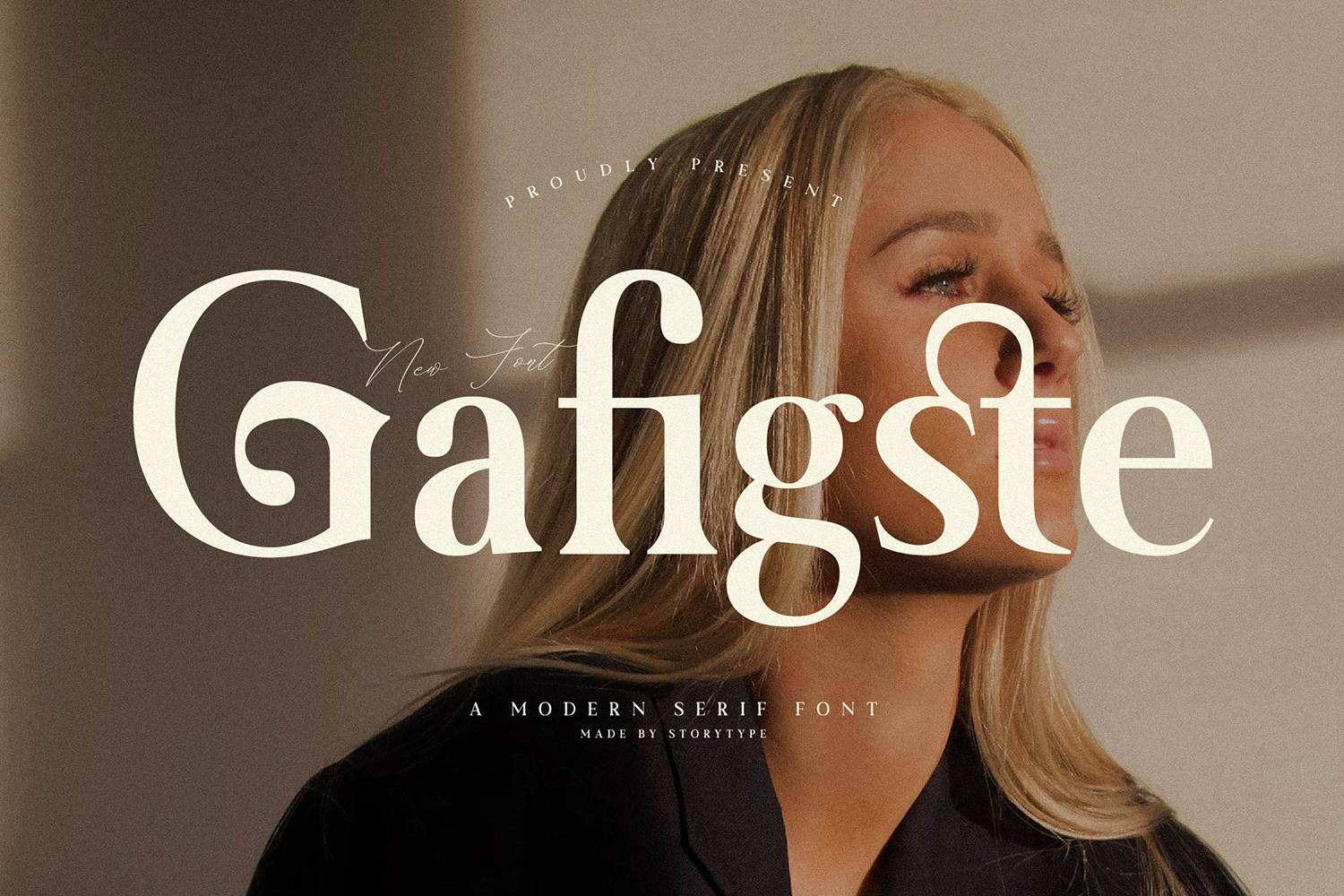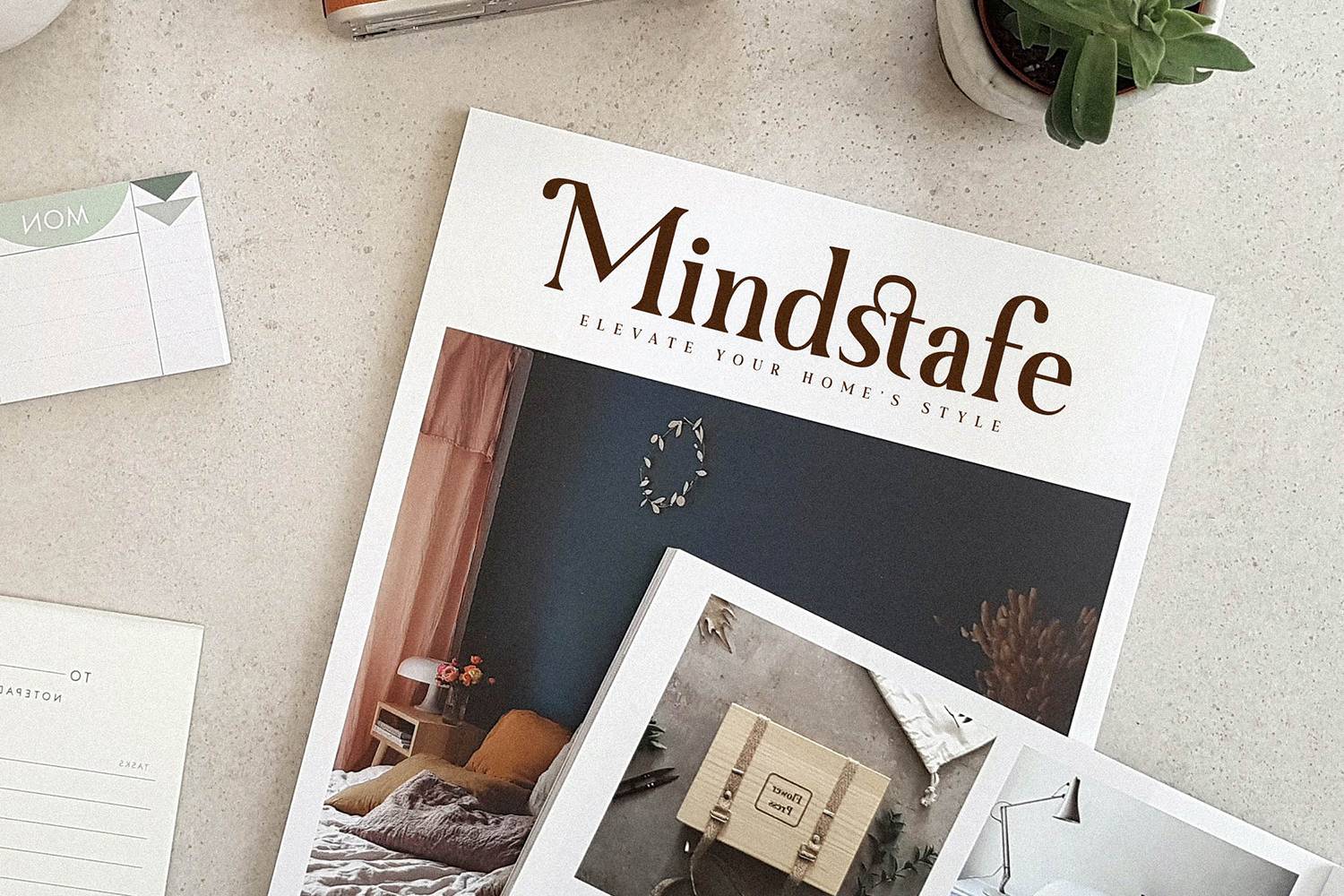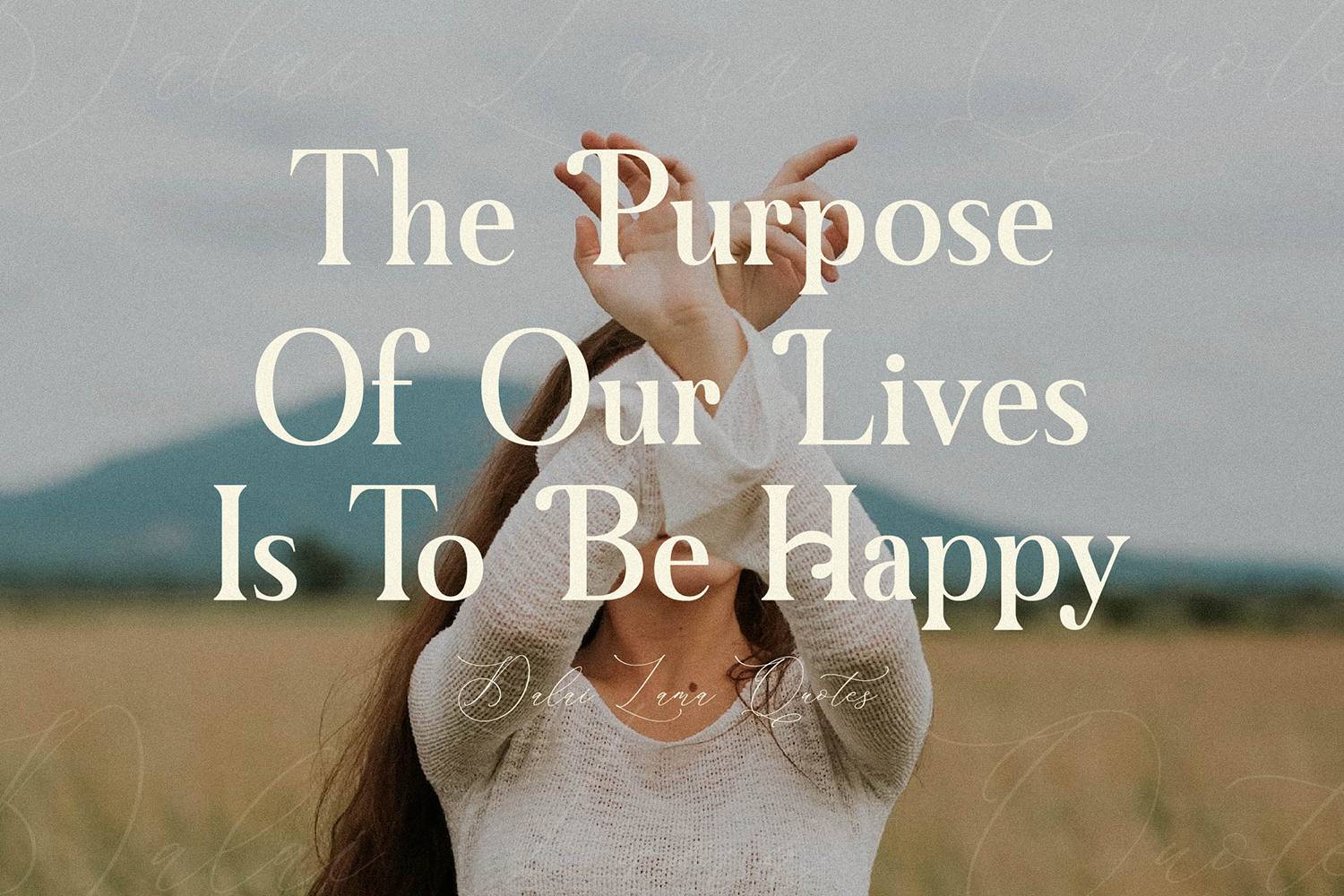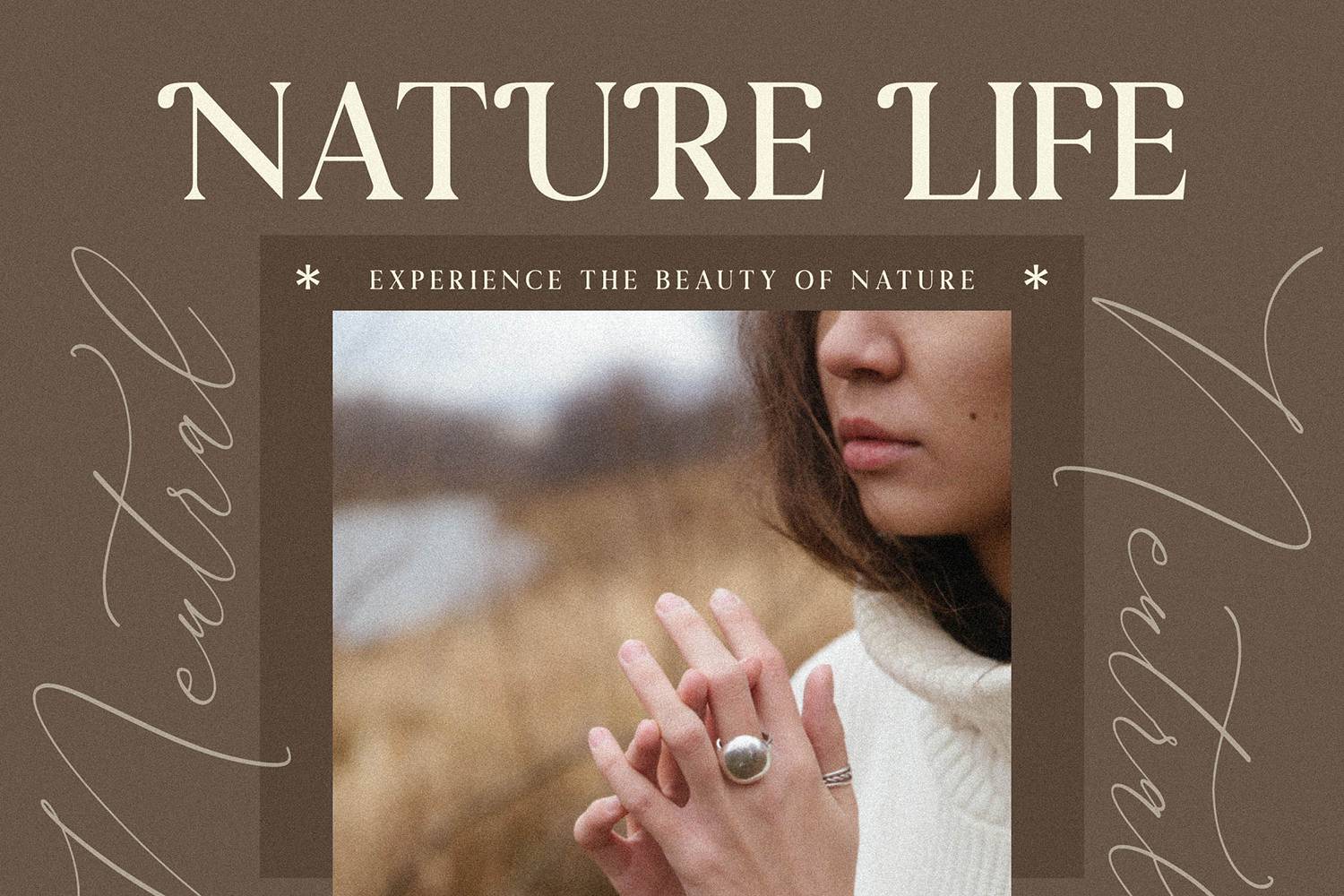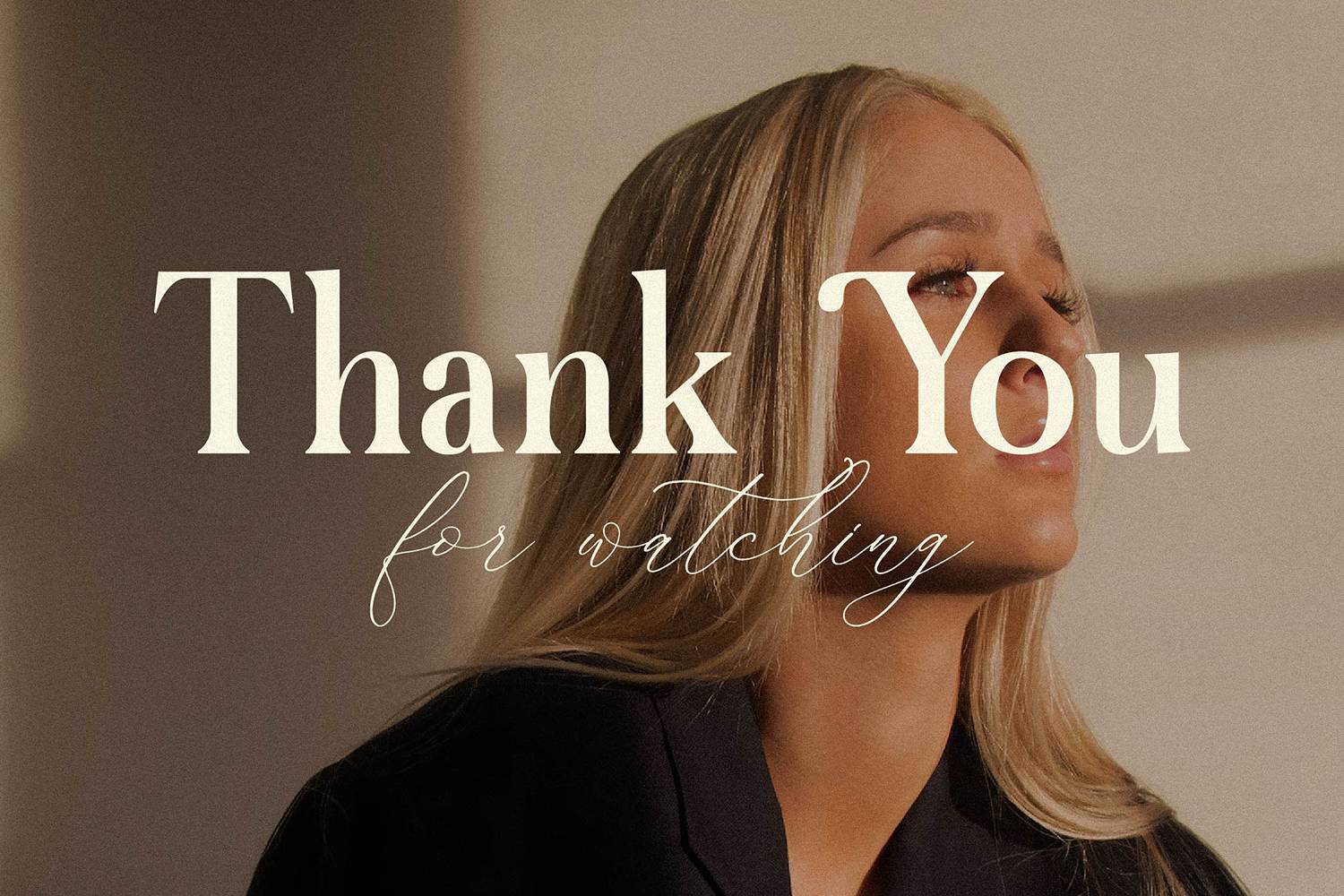
Gafigste is a refined serif font with a classic and elegant feel, characterized by its high contrast between thick and thin strokes and delicate bracketed serifs. Its moderate x-height combined with unique letterforms, like the distinctive Q tail and double-story g, give it a sophisticated yet readable appearance. Ideal for luxury branding, editorial headlines, and stylish packaging, Gafigste conveys a timeless, professional tone that enhances refined and upscale designs.
Gafigste Font
About Gafigste Font